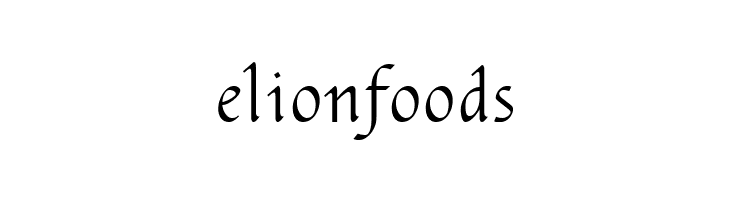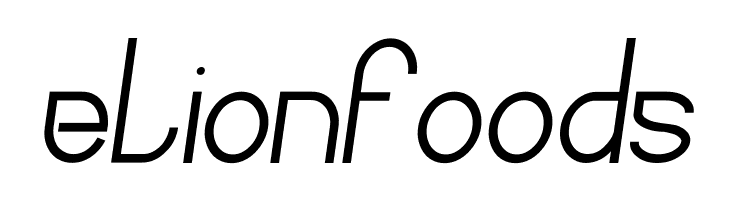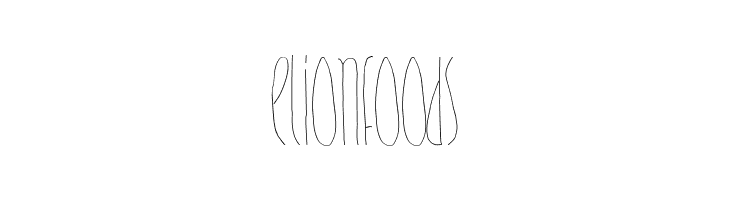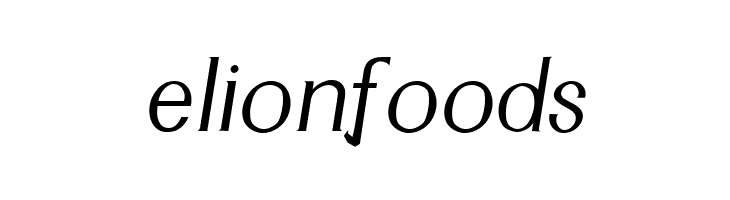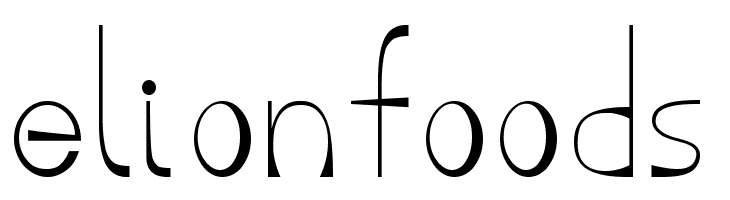
A delicate and elegant font with graceful curves and a light, airy feel.
A modern, italic font with elongated, flowing characters and a sleek design.
A tall, narrow font with a modern and sleek design.
A modern, elegant font with high contrast and slender letterforms.
A modern, ultra-thin unicase font with elongated, elegant characters.
A light, elegant italic font with a modern and sophisticated style.
A sleek and elegant italic font with smooth curves and a refined appearance.
A tall, thin, and modern sans-serif font with a sleek, elegant appearance.
A thin, italic sans-serif font with a modern and elegant style.
A modern, slim font with clean lines and geometric shapes.